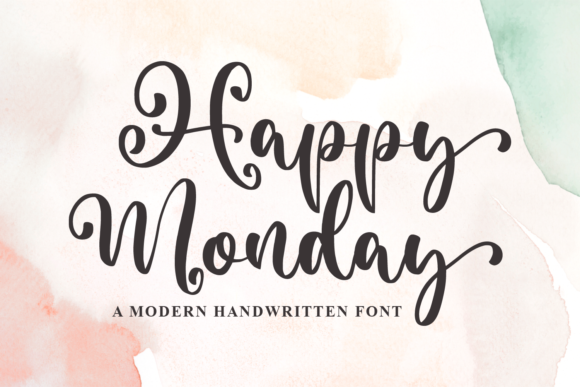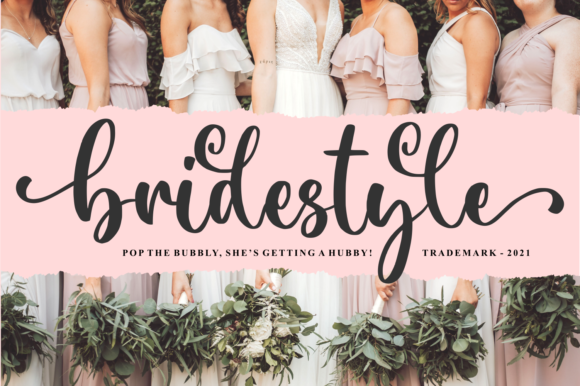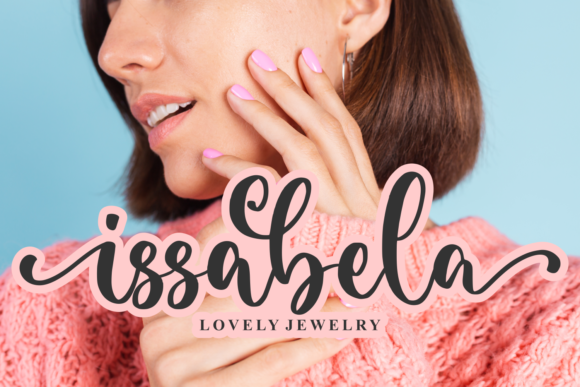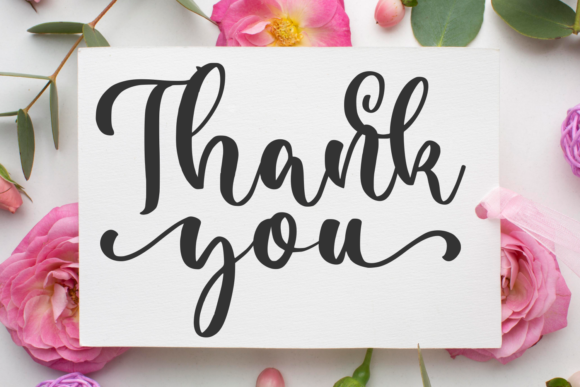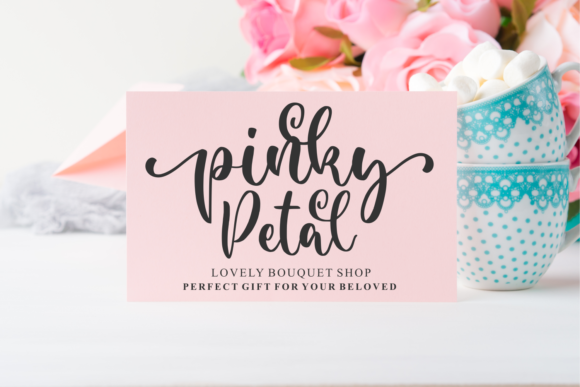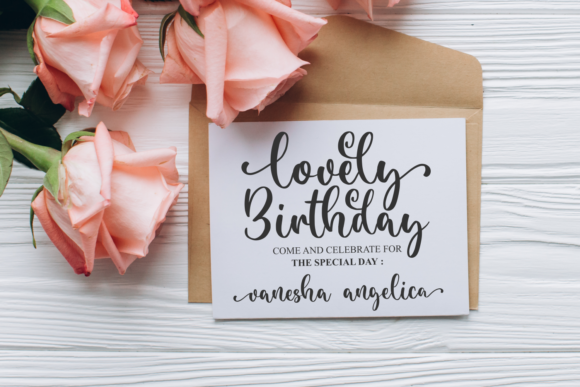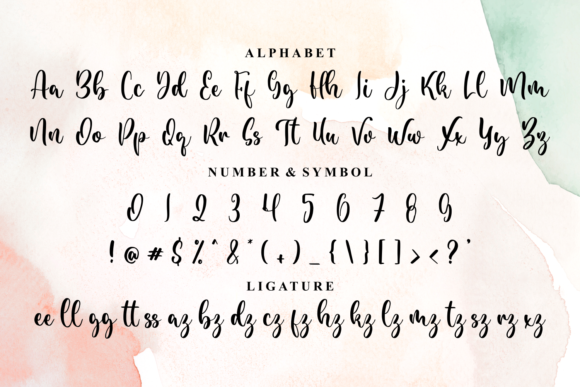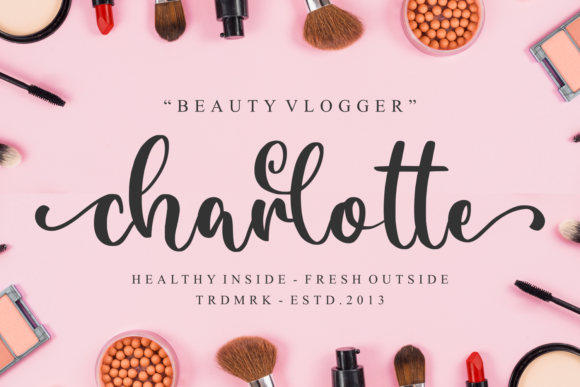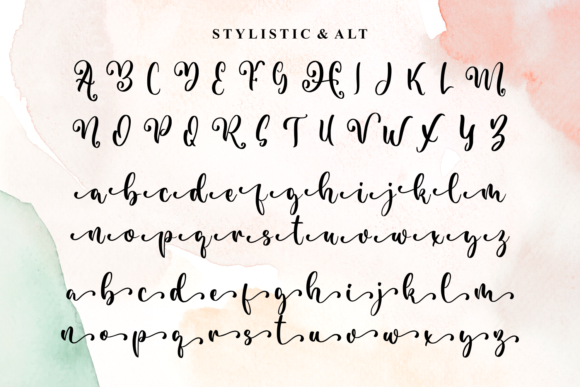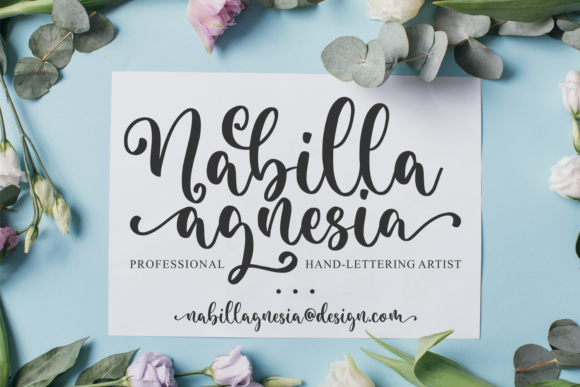
Happy Monday Font
About Happy Monday Font
Happy Monday is a magical script font carefully created with a touch of elegance. This font is PUA encoded which means you can access all of the glyphs and swashes with ease!